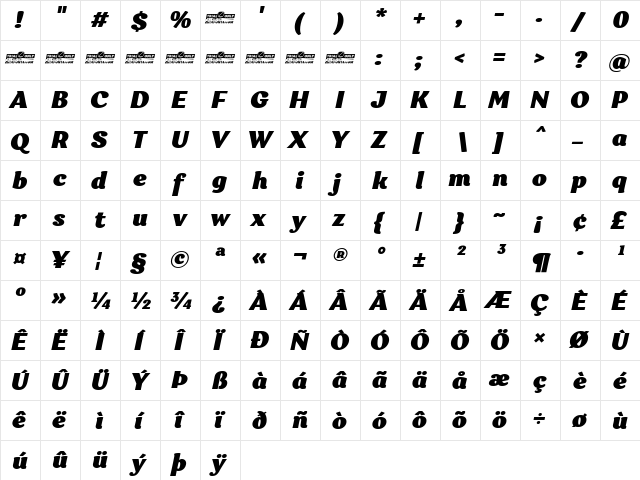
Garbata Trial Black Italic
| Foundry | Zetafonts |
| Designer | Francesco Canovaro, Debora Manetti |
Design Context for Garbata Trial Typeface
Garbata Trial offers clean, dependable letterforms without strong stylistic allegiance, making it a practical choice for designers who need flexibility. Its italic angle brings a sense of urgency and motion to the letterforms.